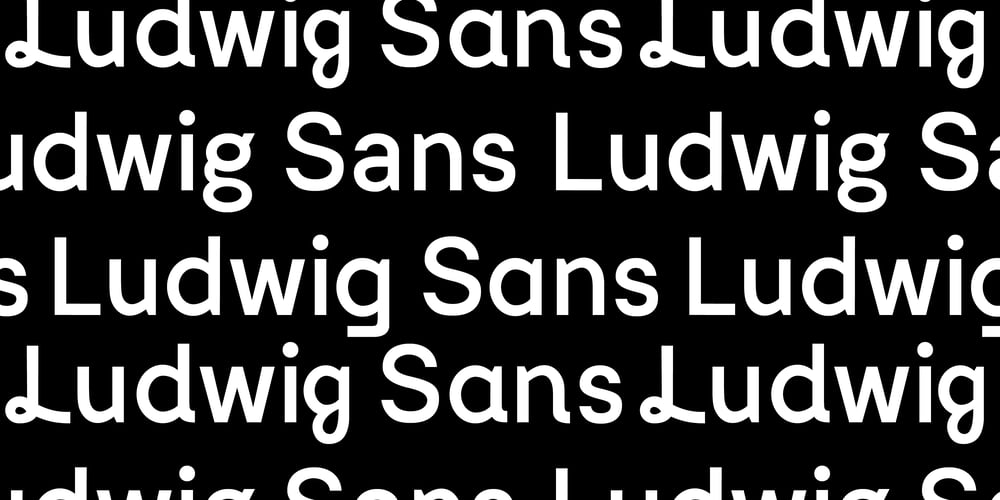
Ludwig Sans
Ludwig Sans font
Ludwig Sans Font Family was designed by Pascal Huber and published by Hyber Type. Ludwig Sans contains 7 styles and family package options. Ludwig Sans is a modern Sans Serif Font Family inspired by american Gothics. It also contains many Alternates that are inspired by Ludwig Sütterlin’s Latin Script from 1911. All those Alternates can be combined seamlessly within the neutral Sans Serif Typeface, so you get both: a bread-and-butter type and a display font.